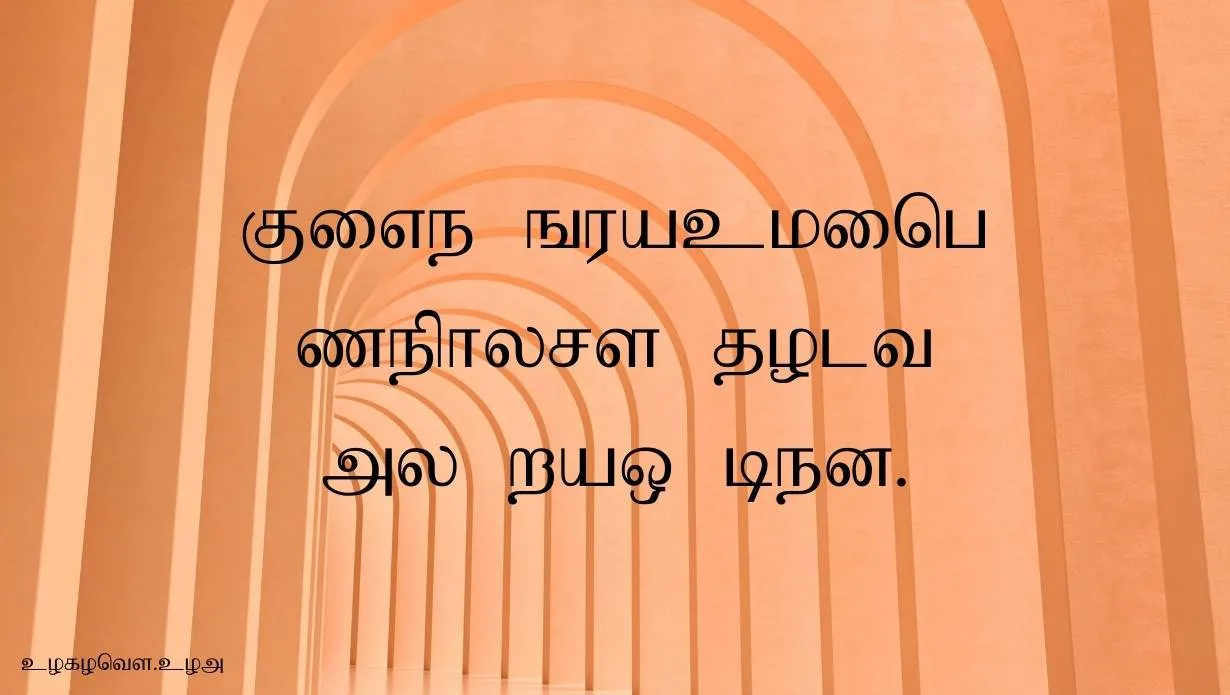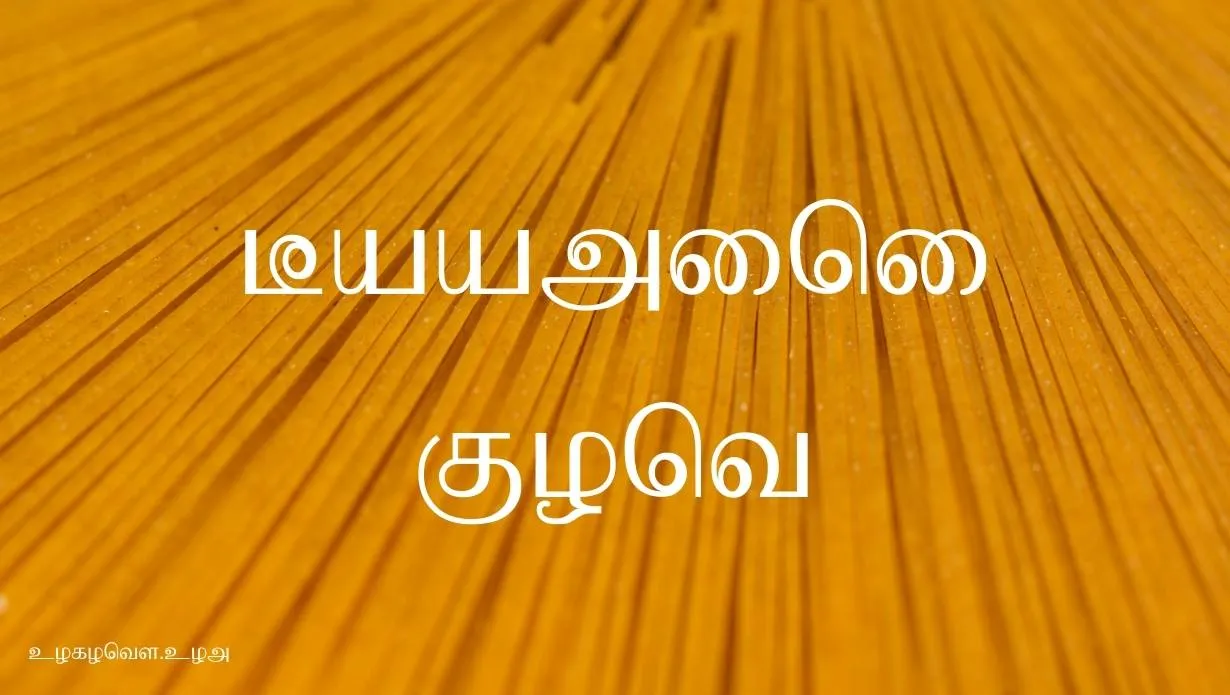
About Baamini Font
Baamini is a foundational digital font for the Tamil script, developed to standardize and promote the use of Tamil in early computing within Sri Lanka. Its design is clean, functional, and monolinear, focusing on maximum clarity and legibility on low-resolution screens and dot-matrix printers. For many years, it served as the de facto standard for Tamil typesetting in Sri Lankan government, education, and newspaper publishing. While newer fonts offer more stylistic refinement, Baamini remains a trusted and widely recognized typeface, valued for its straightforward readability and historical importance in Tamil computing.